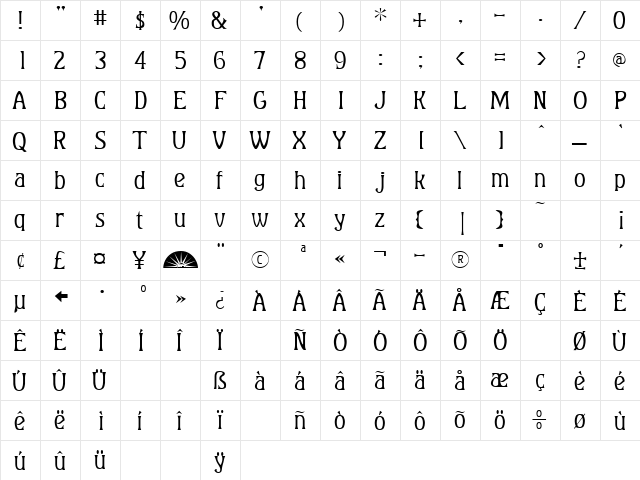
Baumfuss Regular
Design Context for Baumfuss Typeface
Baumfuss takes a measured approach to typography — its balanced proportions and neutral character make it a reliable workhorse for both digital and print work.